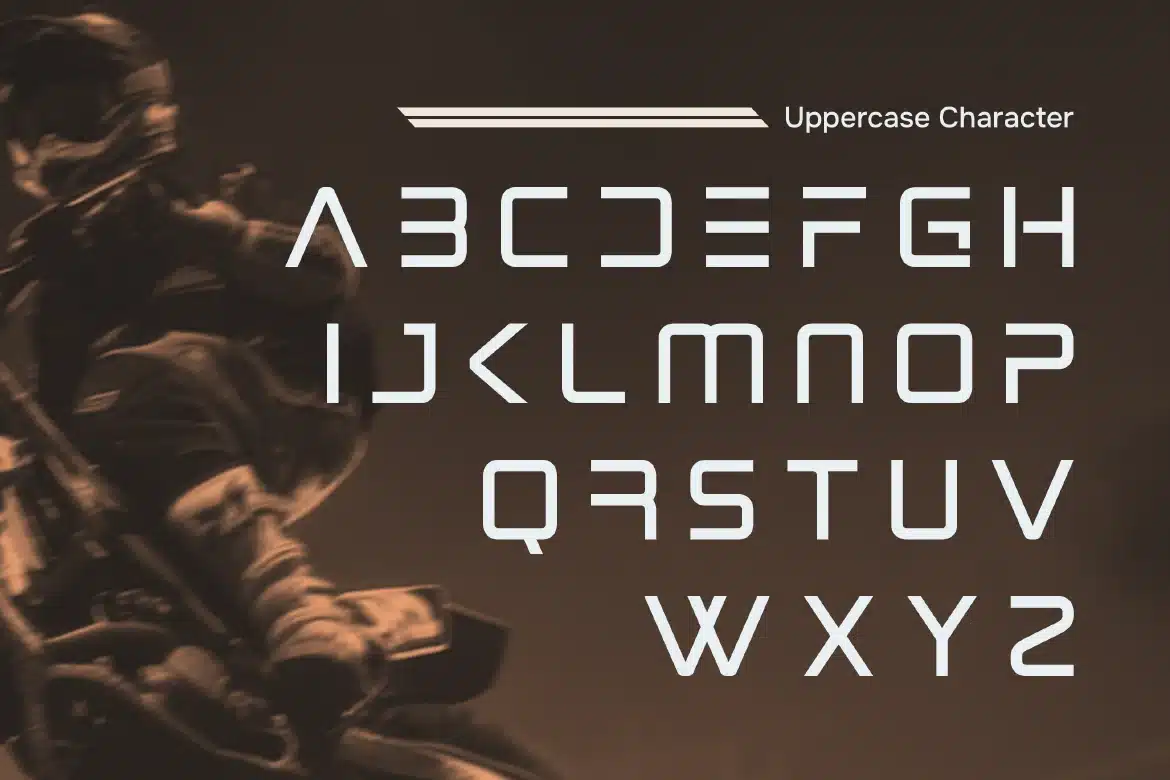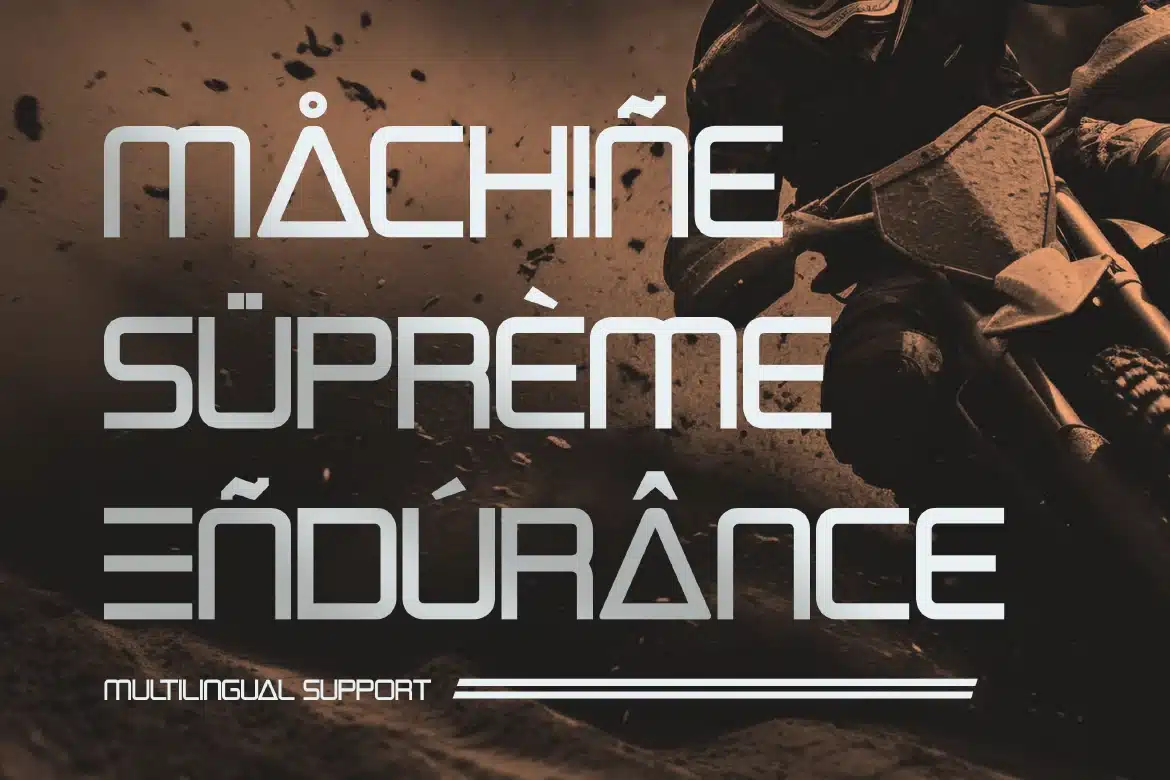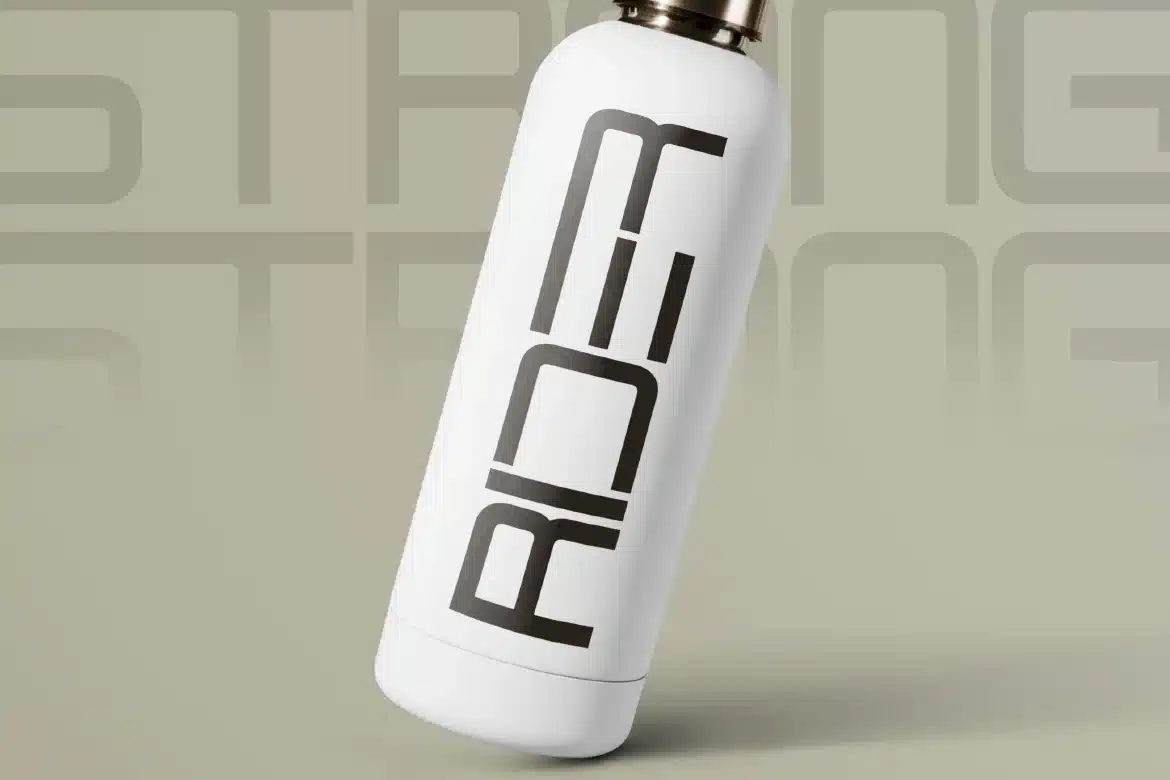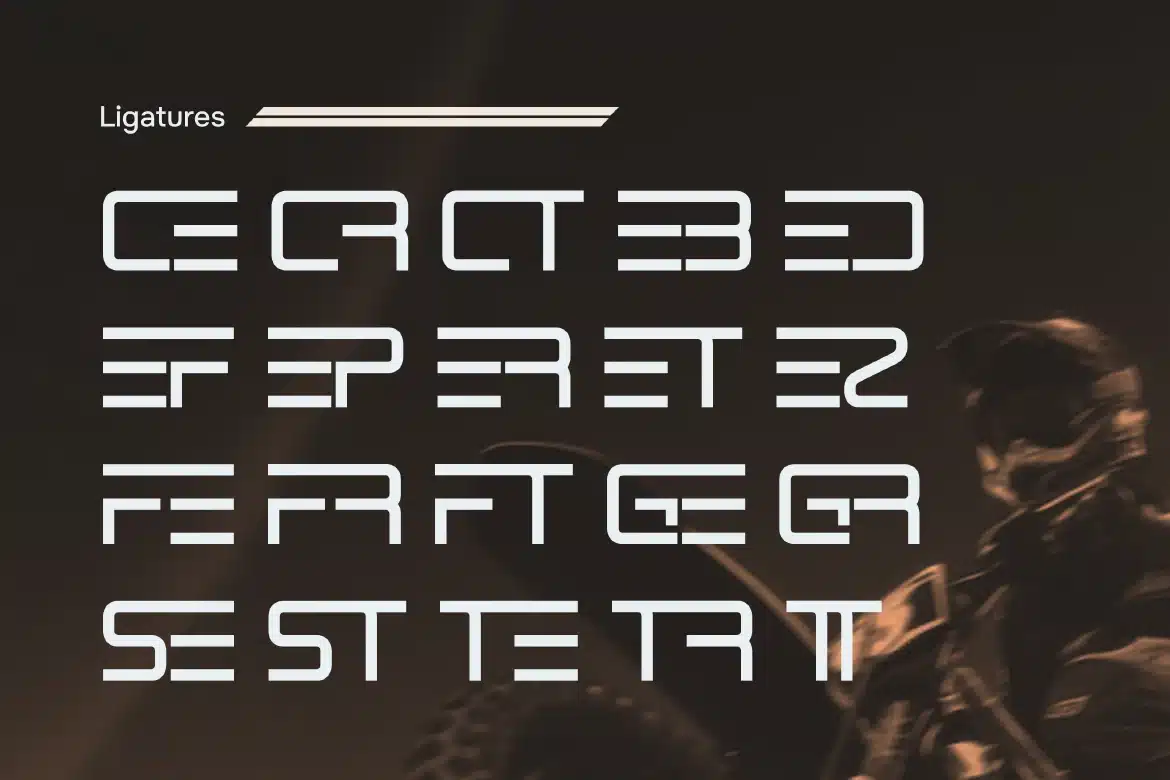
Futuristic Sport Display Font – Revocent
Futuristic Sport Display Font - Revocent
Revocent is a modern futuristic sport display font designed to express speed, innovation, and high-performance energy. With its sleek lines, sharp angles, and forward-looking structure, Revocent creates a bold visual identity that feels fast, dynamic, and cutting-edge. Inspired by the fusion of sports and technology, this typeface features distinctive letterforms that emphasize motion and precision. Its futuristic style gives your designs a strong and modern edge, while its clean construction ensures readability and balance across various applications.
Who Should Use Revocent?
Revocent is ideal for designers, brands, and creatives looking for a modern sport font with a futuristic character. It’s especially suited for projects that combine athletic energy with tech-inspired aesthetics.
Sports and esports branding
Gaming and futuristic visuals
Fitness and active lifestyle design
Tech and innovation branding
Posters and promotional materials
Advertising and campaigns
Packaging and merchandise
High-impact modern typography